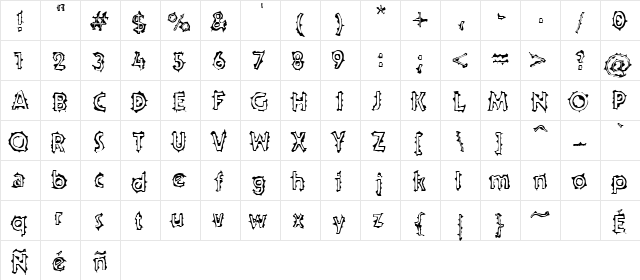
Teenick Regular
Design Context for Teenick Typeface
Teenick is a composed and adaptable typeface that performs quietly and consistently across a wide range of design contexts.